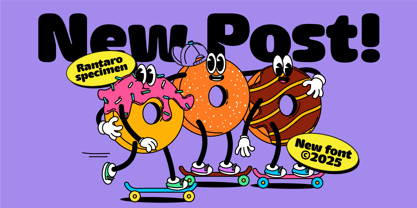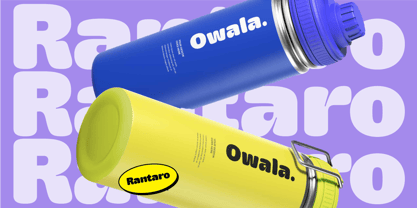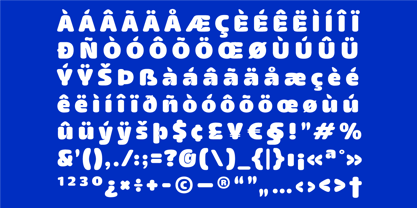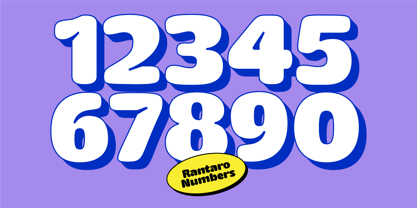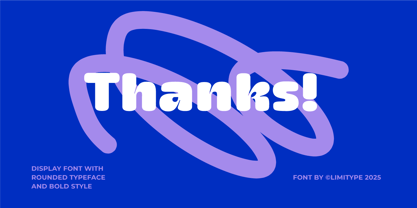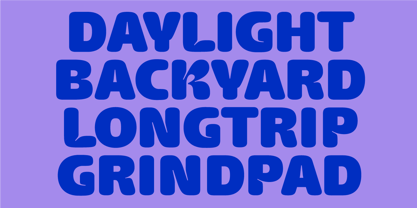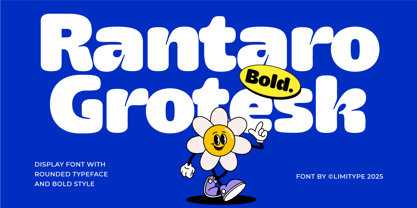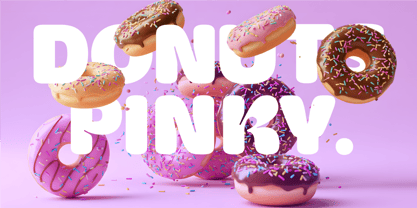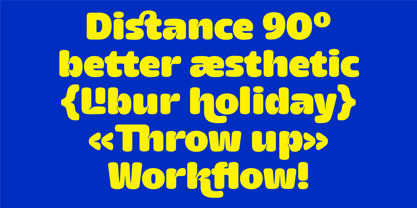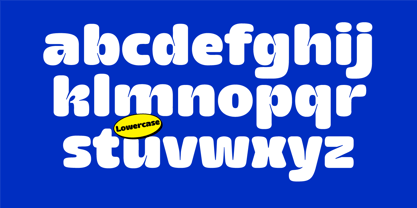
Rantaro
by limitype
The Rantaro Font Family was designed by Muhammad Muammar, Furqan Sudirman and published by limitype. Rantaro contains 1 styles.
Rantaro is a modern display font featuring a smooth, rounded style that gives it a friendly yet professional look. Unique inktrap details on several characters add personality and make it stand out. Perfect for large, eye-catching titles or headlines that need to be bold, clear, and modern without feeling too rigid.
- Uppercase
- Lowercase
- Number
- Symbol
- Multilingual